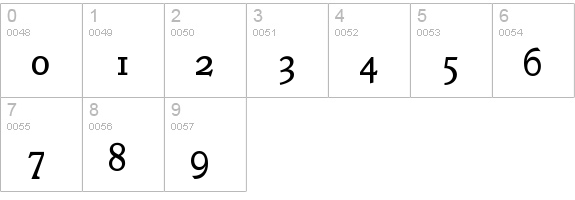
VeroneseBookOldStyleFigures Font Details
VeroneseBookOldStyleFigures font is a timeless and elegant typeface that effortlessly combines old-world charm with a modern twist. Its classic, serif letterforms exude sophistication and grace, making it the perfect choice for projects that require a touch of refinement. With its delicate curves and subtle details, VeroneseBookOldStyleFigures font captures the essence of traditional calligraphy, bringing a sense of artistry and craftsmanship to any design. Whether used for invitations, book covers, or branding materials, this font adds a touch of timeless beauty that is sure to captivate and impress. One of the standout features of VeroneseBookOldStyleFigures font is its meticulously designed old-style figures. These numerals have a distinct vintage flair, evoking a sense of nostalgia and authenticity. They seamlessly blend into the overall aesthetic of the font, enhancing its character and lending a unique touch to any project. What sets VeroneseBookOldStyleFigures font apart is that it is available for free download at FontsMarket.com. This means that designers and creatives from all backgrounds can access and utilize this stunning typeface without any financial constraints. With its freely available nature, VeroneseBookOldStyleFigures font encourages artistic expression and fosters a sense of inclusivity in the design community. Whether you're a professional designer or an aspiring creative, VeroneseBookOldStyleFigures font is a versatile and visually striking typeface that will elevate your projects to new heights. Its timeless appeal, combined with its freely available accessibility, makes it a must-have font for anyone seeking to create captivating and visually stunning designs.